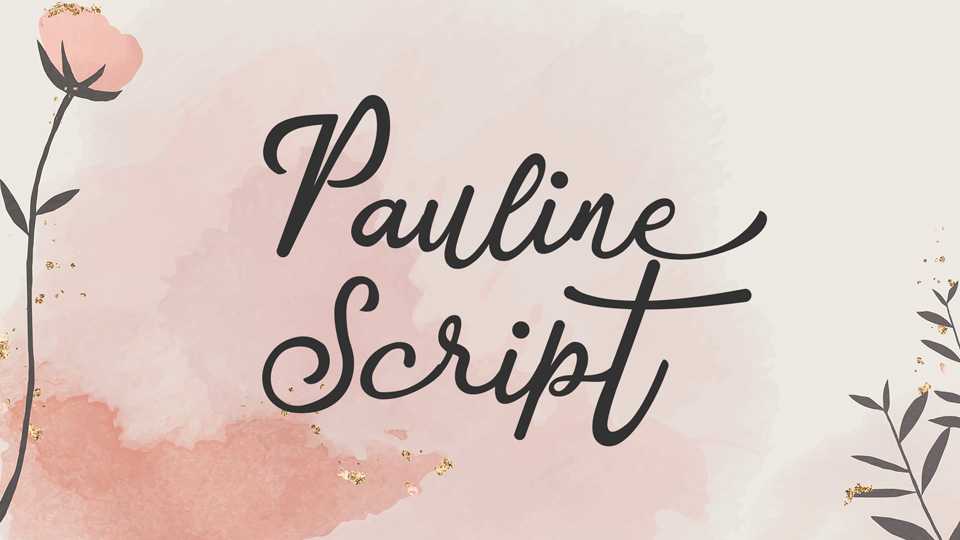
Download Pauline Script font, a soft and sweet hand lettered typeface. Pauline Script is perfect for anything to do with romance, weddings, crafts to give an even more authentic, handmade look to your designs.
Designer: Fransiskus Hadi Prasetyo